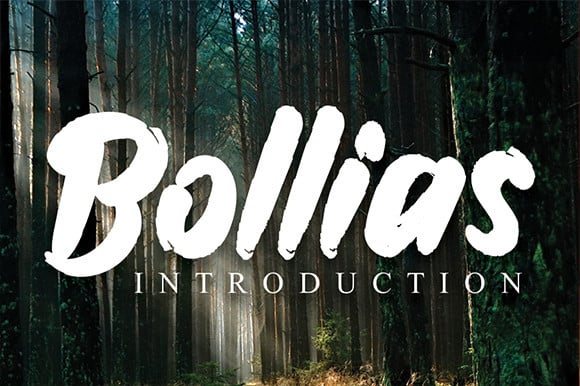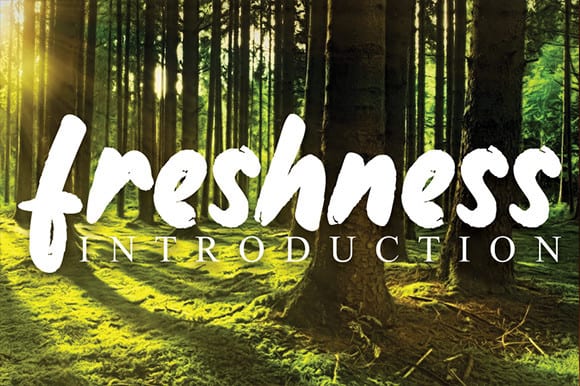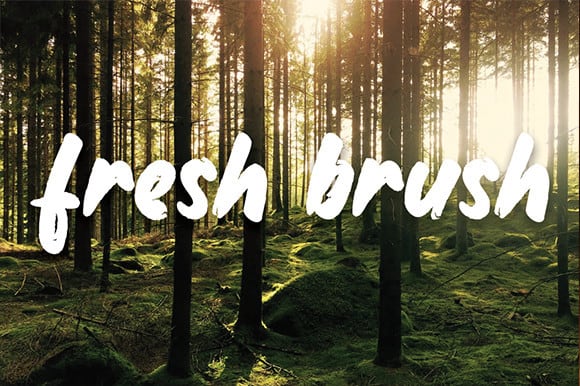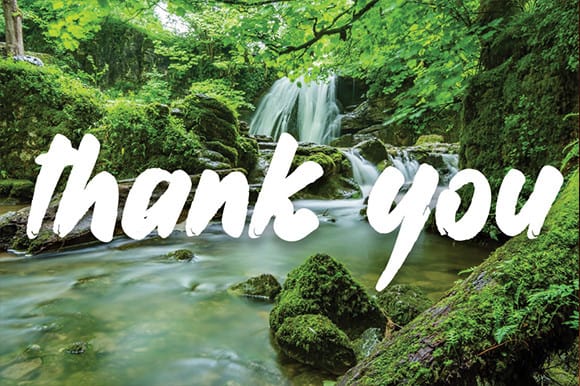
Bollias Brush Font
Bollias Brush Font – the latest style letters are perfect for wall displays, wedding invitations, social media post logos, advertisements, product packaging, product designs, labels, photography, watermarks, invitations, stationery, and any project that requires taste handwriting.